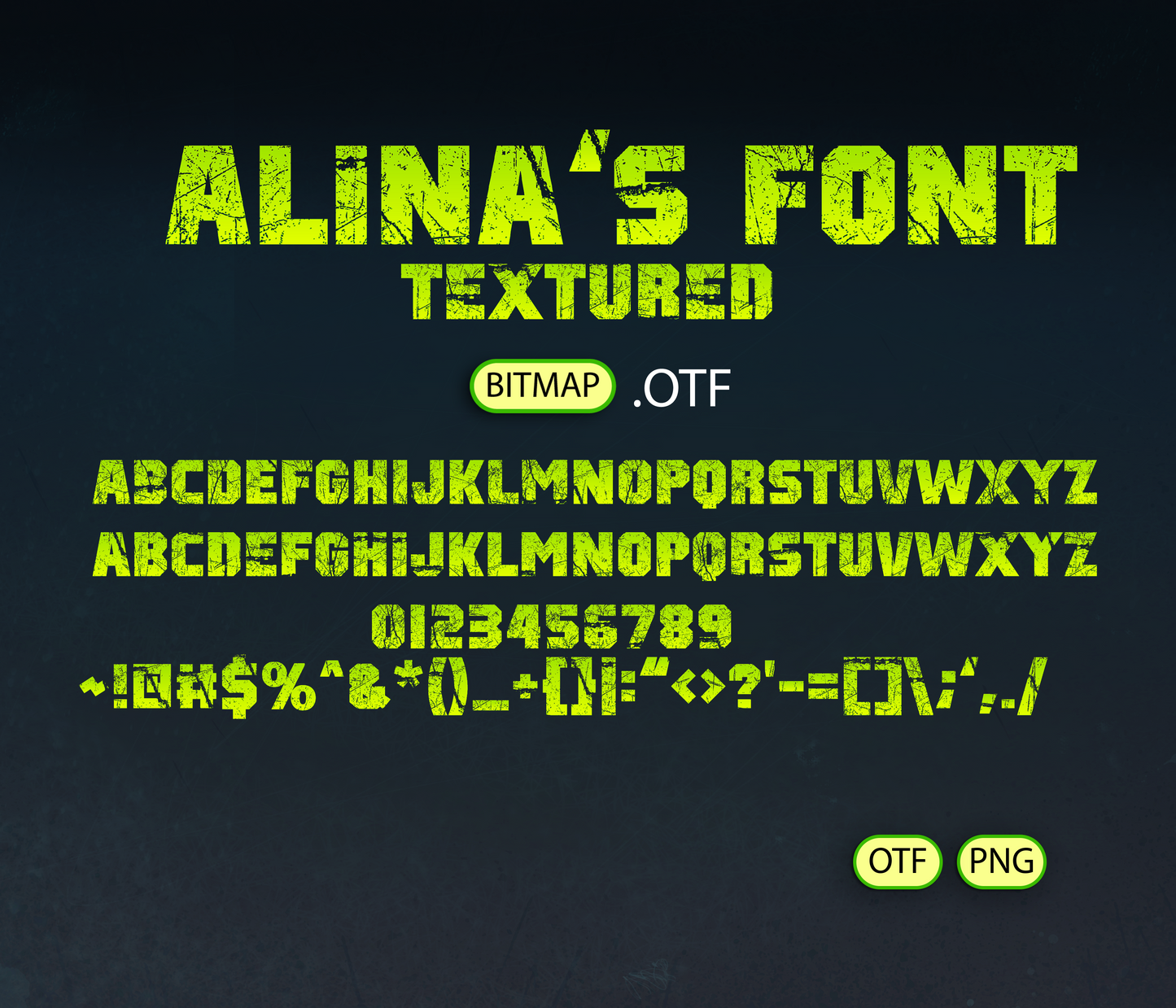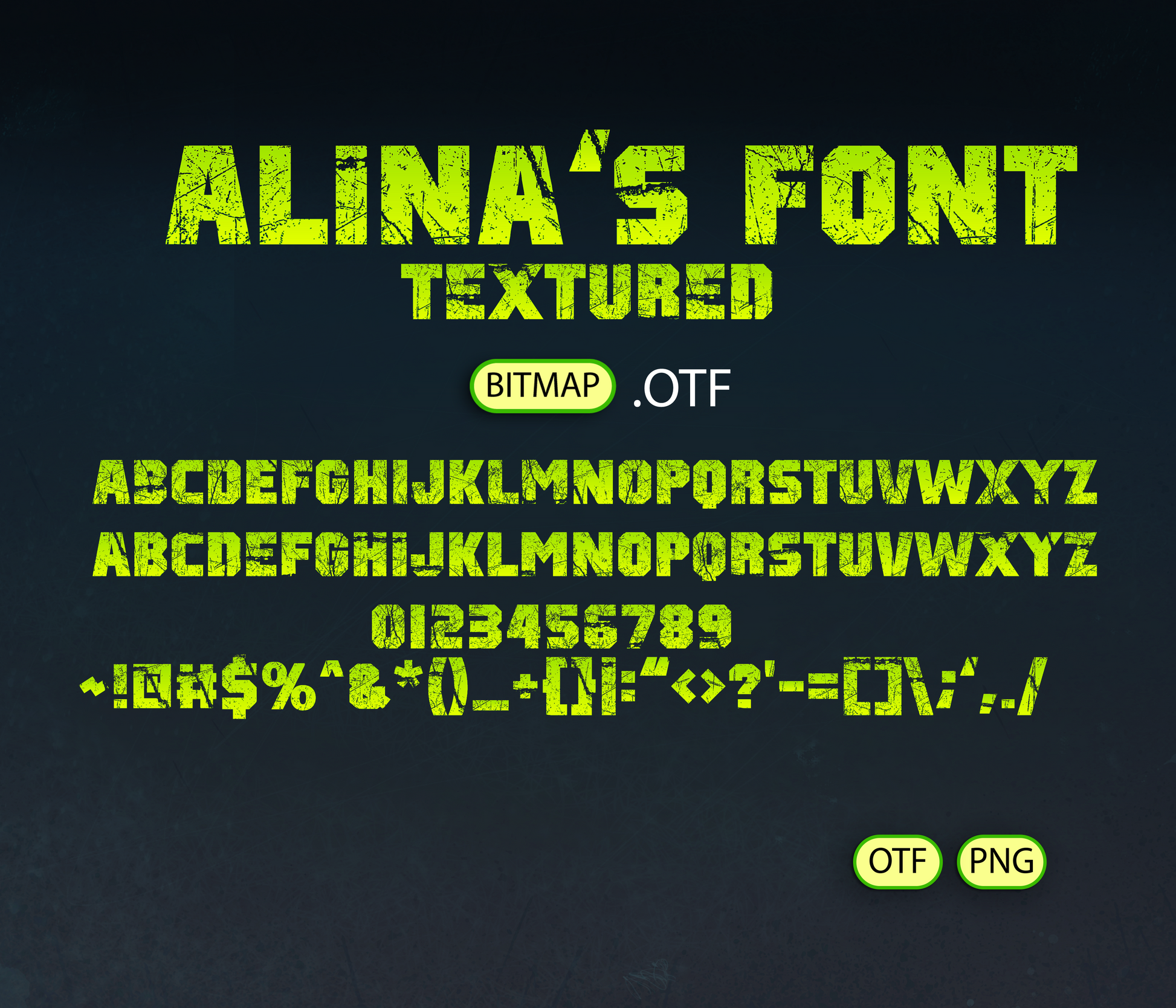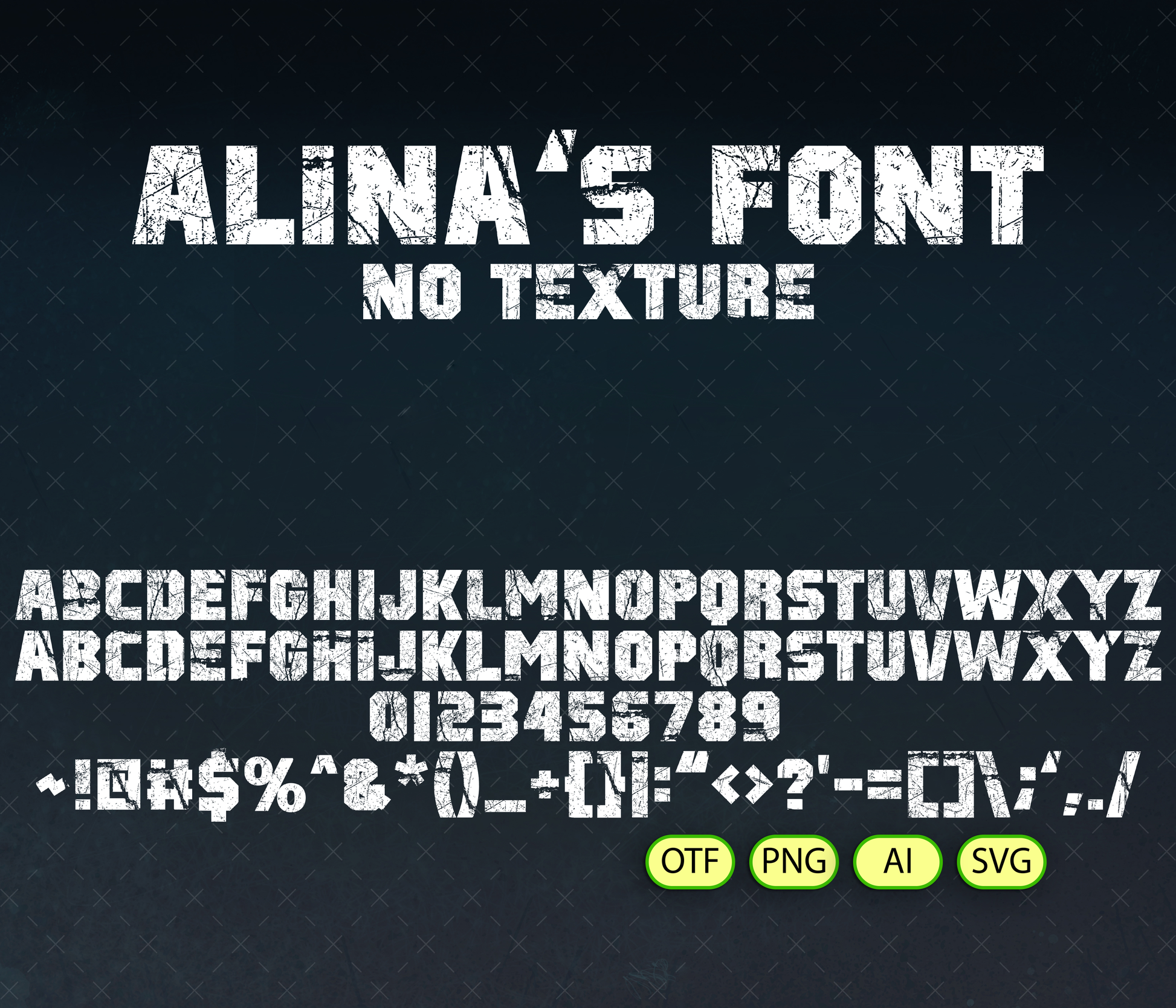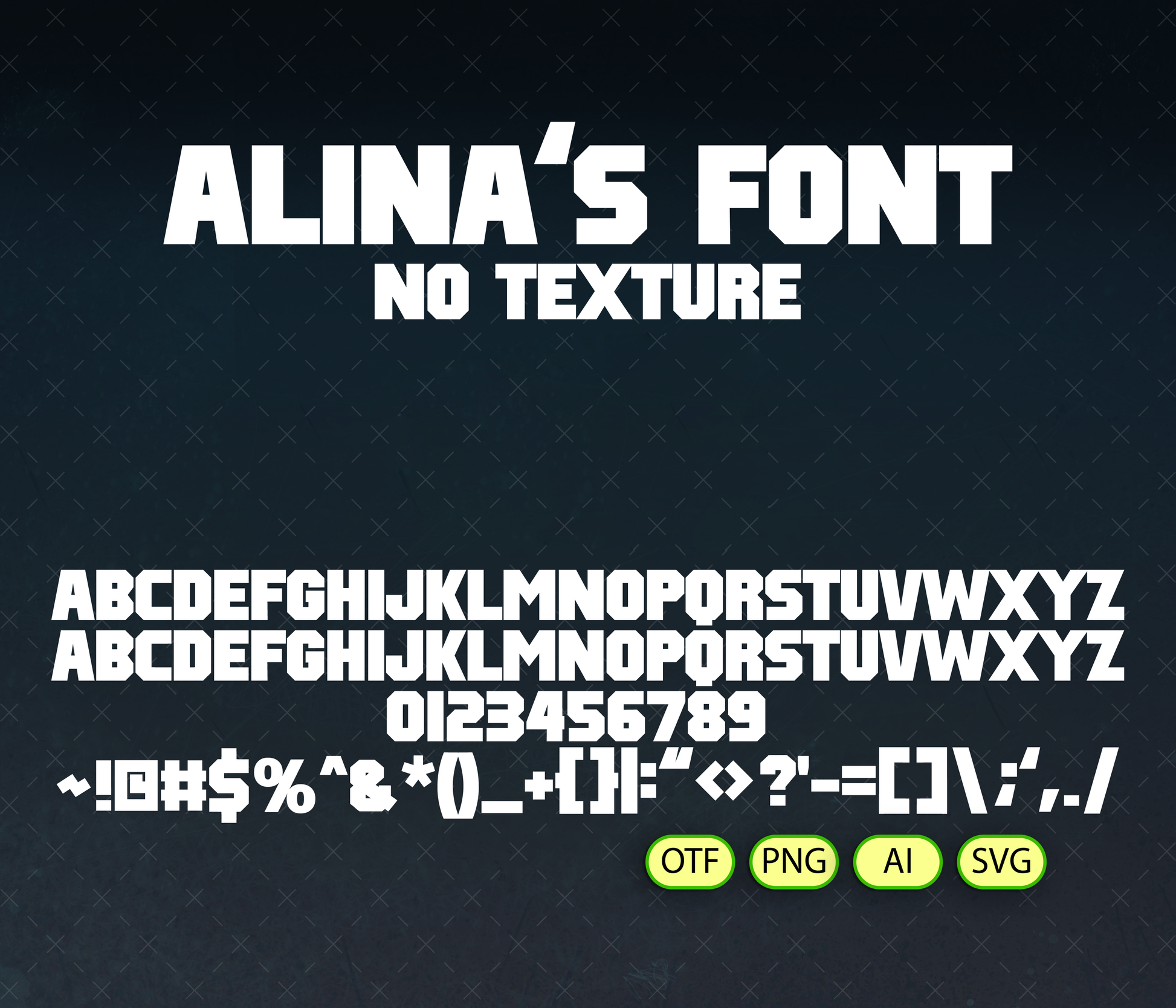
Elite Heroes Battle Font Textured
Embark on a Heroic Journey with the Elite Heroes Battle Textured Font
Step into a world where every letter tells a story with the Elite Heroes Battle Textured Font, your gateway to the epic challenges at an elite school of crimefighting. Inspired by the valorous heroes of the Elite Heroes, this font brings the excitement of superhero adventures to your projects. Whether you're crafting courageous cake toppers, bold birthday invitations, or daring t-shirt designs, this font is your perfect companion in every creative crusade.
The Elite Heroes Battle Textured Font is not just a typeface; it's a narrative waiting to unfold. Each letter embodies the superhero spirit, ready to leap into action in your projects. This font features seamless compatibility across various platforms, ensuring that your designs transition effortlessly from digital concepts to tangible creations. The textured charm of this font adds a distinctive edge, making your designs not only visually appealing but also storytelling masterpieces.
Our Elite Heroes Battle Textured Font is your key to unlocking a world of heroic and impactful design. Whether you're crafting promotional materials, designing unique merchandise, or adding a dynamic touch to personal projects, this font empowers you to communicate with the energy and excitement that define the Elite Heroes. Ready to elevate your creative projects with the power of heroes? This font is your ultimate tool for creating visually stunning and narratively rich designs.